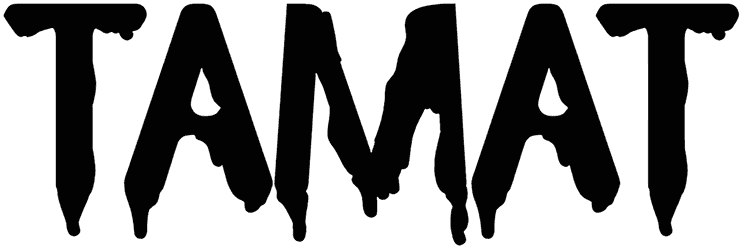
We strongly encourage you to take your artwork, such as movie posters, video game banners, digital brochures, and graffiti, to the next level by utilizing a horror font like Tamat. Carrying a sense of dread, fear, excitement, and eeriness would be your game-changer to standing out alongside thousands of high-end graphic content.